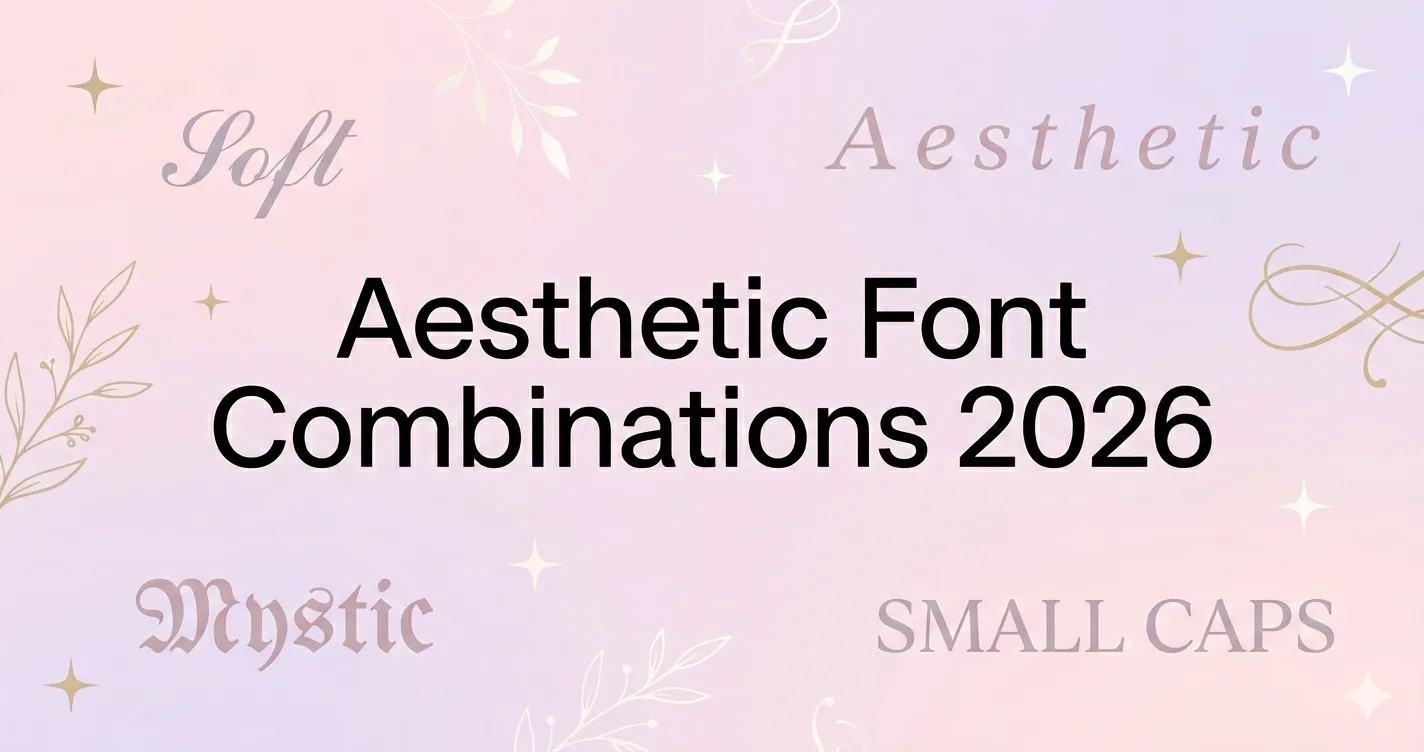
Using a single font style in your bio is fine. But combining two complementary Unicode styles creates visual hierarchy — the same principle used in professional typography, applied to social media bios.
Combo 1: Bold Cursive + Small Caps
Use bold cursive for your name or main line, small caps for the description.
𝓢𝓸𝓯𝓽 𝓐𝓮𝓼𝓽𝓱𝓮𝓽𝓲𝓬 ᴄʀᴇᴀᴛᴏʀ · ᴅʀᴇᴀᴍᴇʀ · ᴇxᴩʟᴏʀᴇʀ
Best for: Instagram, coquette / soft aesthetic profiles
Combo 2: Gothic + Bold
Name in gothic, tagline in bold.
𝔐𝔶𝔰𝔱𝔦𝔠 𝔙𝔦𝔟𝔢𝔰 𝗱𝗮𝗿𝗸 𝗮𝗲𝘀𝘁𝗵𝗲𝘁𝗶𝗰 · 𝗻𝗶𝗴𝗵𝘁 𝗼𝘄𝗹
Best for: Discord usernames, dark aesthetic Instagram
Combo 3: Vaporwave + Italic
Vaporwave for the headline, italic for the subtitle.
Aesthetic Soul 𝘭𝘰𝘴𝘵 𝘪𝘯 𝘵𝘩𝘦 𝘥𝘳𝘦𝘢𝘮
Best for: TikTok, Y2K aesthetic profiles
Combo 4: Bold Italic + Small Caps
𝘽𝙪𝙞𝙡𝙩 𝙛𝙧𝙤𝙢 𝙨𝙩𝙖𝙧𝙙𝙪𝙨𝙩 ᴀʀᴛɪꜱᴛ · ᴠɪꜱɪᴏɴᴀʀʏ · ᴅʀᴇᴀᴍᴇʀ
Best for: creative professionals, LinkedIn-adjacent profiles
Combo 5: Cursive + Vaporwave
𝒮𝓊𝓃𝓈𝑒𝓉 𝒢𝒾𝓇𝓁 Living slowly
Best for: travel / lifestyle Instagram accounts
Combo 6: Double Struck + Bold
𝕊𝕥𝕒𝕣𝕘𝕒𝕫𝕖𝕣 𝗰𝗼𝗹𝗹𝗲𝗰𝘁𝗶𝗻𝗴 𝗰𝗼𝗻𝘀𝘁𝗲𝗹𝗹𝗮𝘁𝗶𝗼𝗻𝘀
Best for: Discord, niche academic / space aesthetic
2026 Aesthetic Trends
- Coquette — bows, ribbons, soft pink. Bold Cursive dominates.
- Dark academia — Gothic + Italic combinations.
- Y2K revival — Vaporwave fullwidth text is still trending.
- Clean minimalist — Small Caps only, no decorations.
- Cottagecore — Cursive with nature emoji accents.